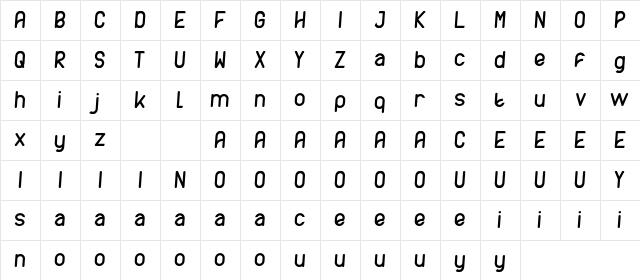
AXTON DEMO Italic
Design Context for AXTON DEMO Typeface
AXTON DEMO offers clean, dependable letterforms without strong stylistic allegiance, making it a practical choice for designers who need flexibility. Its italic angle brings a sense of urgency and motion to the letterforms.
Pro Tip: Try AXTON DEMO for annotation and caption copy alongside an upright companion — the contrast in angle creates a dynamic but ordered typographic system.